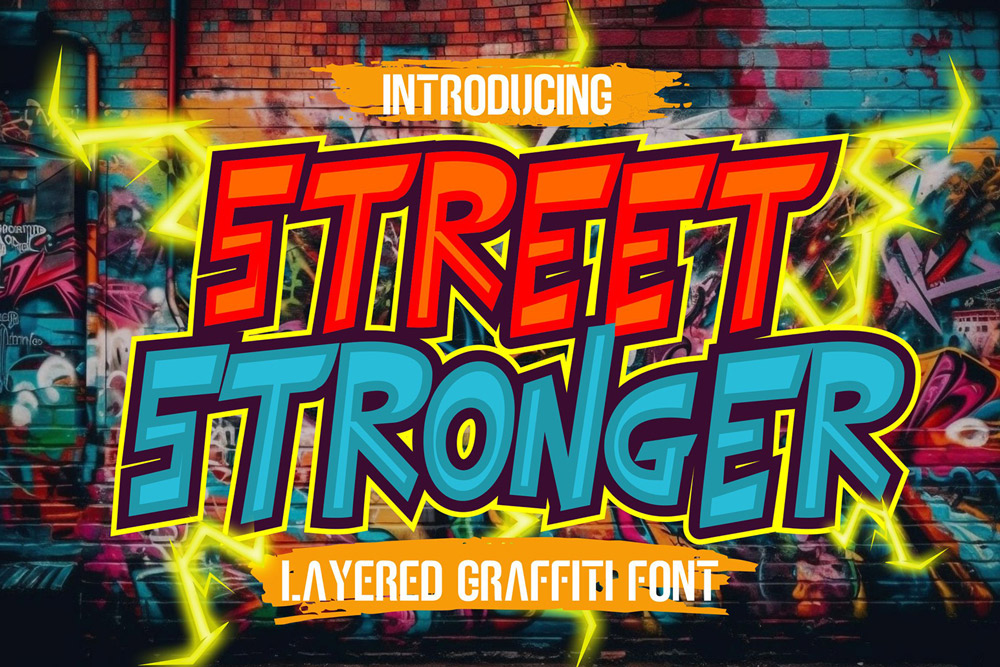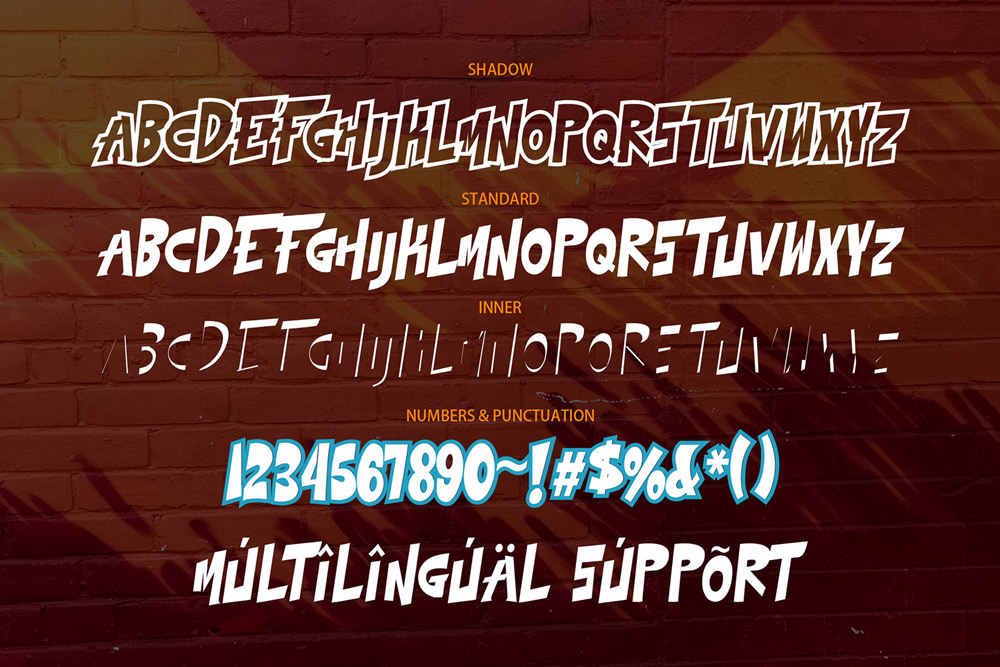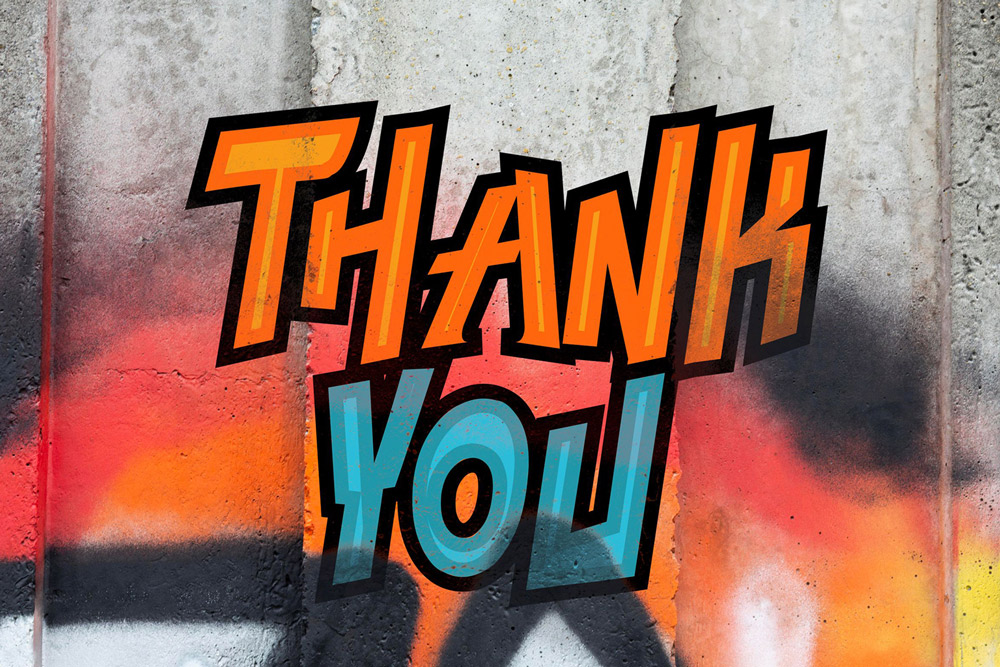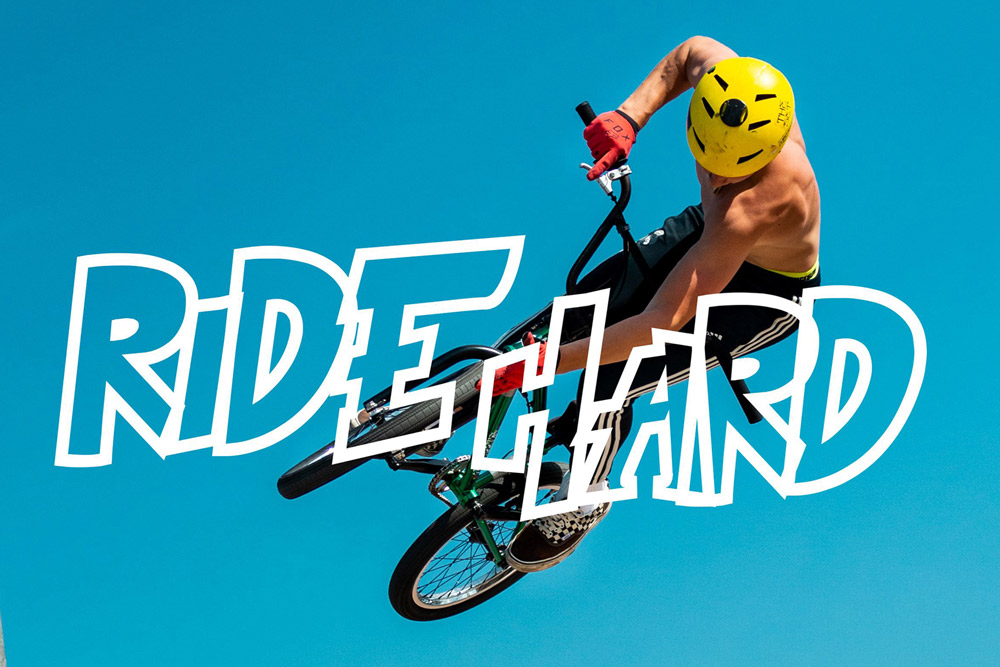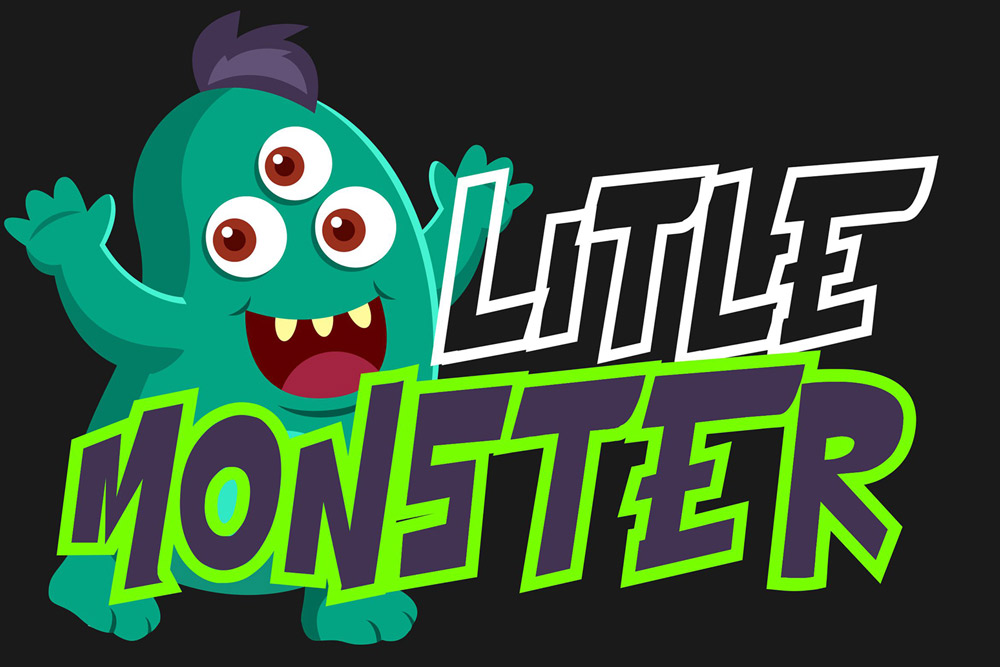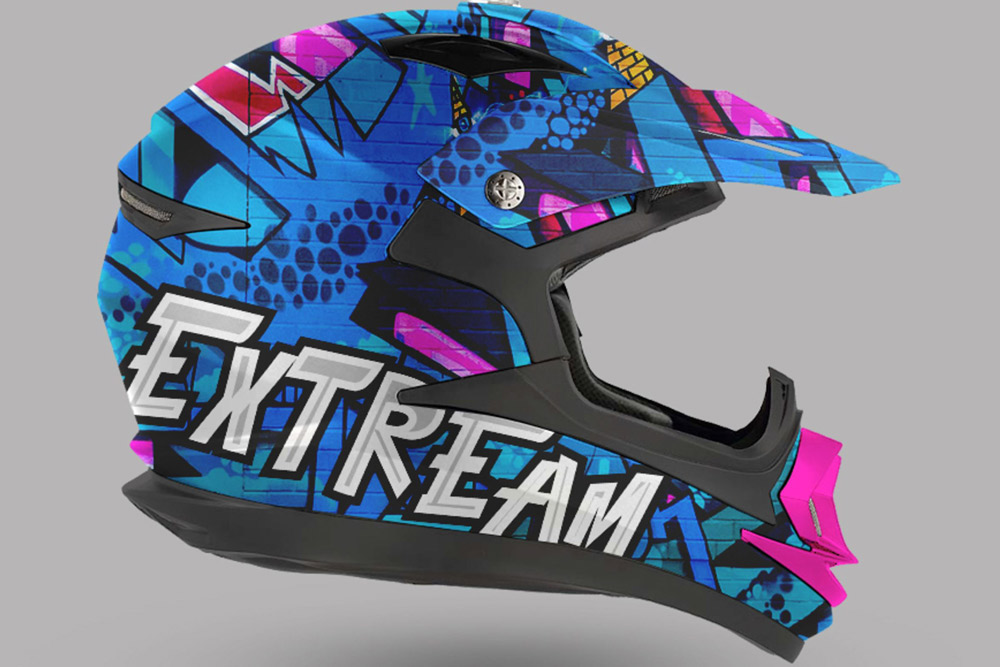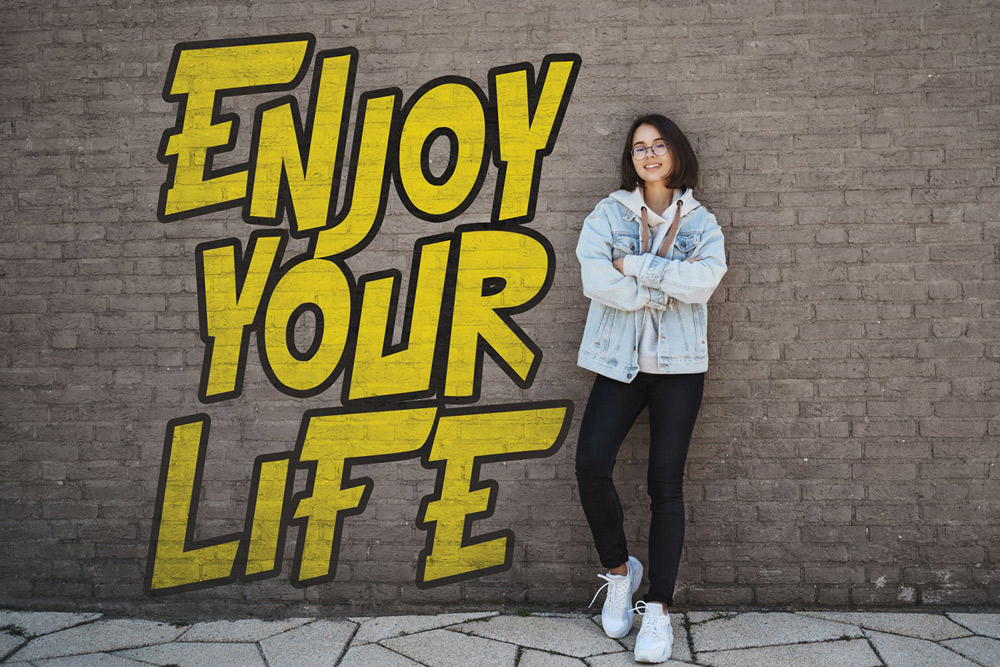
About Street Stronger Font
Street Stronger – Layered Graffiti Font
Street Stronger is a powerful and versatile graffiti font designed to bring depth, dimension, and bold urban energy into your designs. Built as a complete layered system, this layered graffiti font allows you to create striking typographic compositions with ease. Whether you’re working on streetwear branding, poster design, or music visuals, Street Stronger graffiti font delivers a strong visual presence that stands out instantly.
This urban graffiti font captures the spirit of street culture while offering a structured and professional approach to typography. With multiple layers working together, Street Stronger transforms simple text into dynamic and eye-catching visuals, making it a must-have graffiti display font for modern designers.
A Layered Graffiti Font with Depth and Impact
Street Stronger graffiti font is built with a multi-layer system that enhances your typography with depth and dimension. Unlike standard fonts, this layered graffiti font includes separate styles that can be combined to create unique effects. The result is a bold and flexible graffiti font that adapts to a wide range of creative needs.
Each layer adds a new dimension to your design. The combination of structure and layering makes this urban graffiti font ideal for designers who want to create impactful and professional-looking typography without complex editing.
Designed for Bold Urban Expression
If you want your typography to stand out, Street Stronger graffiti font is the perfect choice. This graffiti display font is designed to dominate layouts with its strong shapes and layered depth. It’s perfect for headlines, logos, and branding projects that require a powerful visual identity.
The layered system in this graffiti font allows you to experiment with colors, shadows, and inner details. This flexibility makes Street Stronger one of the most creative urban graffiti fonts available for both digital and print design.
Complete Character Set & Typography Features
Street Stronger – Layered Graffiti Font includes all essential features for professional design use.
Uppercase Characters
Bold and expressive uppercase letters designed with authentic graffiti font style for maximum visual impact.
Multilingual Support
Supports multiple languages, making this graffiti font suitable for global branding and international projects.
Numbers & Punctuation
Includes a full set of numbers and punctuation for flexible typography using this urban graffiti font.
This graffiti font package comes with a complete layered system:
- Unique layered graffiti font design
- Multiple styles for depth and dimension
- Bold and impactful urban lettering
- High readability for display typography
- Perfect for streetwear and urban branding
- Easy-to-use layering system
- Works across digital and print media
Why Designers Love Street Stronger
Designers love Street Stronger graffiti font because it offers unmatched flexibility. The layered system allows for creative experimentation, making it easy to build complex typographic designs without starting from scratch. This layered graffiti font saves time while delivering high-quality results.
Another reason designers choose this urban graffiti font is its bold visual presence. The combination of Regular, Inner, and Shadow styles creates a powerful depth that enhances any design. This makes Street Stronger a go-to graffiti display font for branding and promotional materials.
The versatility of this graffiti font also makes it suitable for a wide range of projects. Whether you’re working on streetwear, music visuals, or digital content, Street Stronger adapts effortlessly.
Perfect For Creative Projects
Street Stronger graffiti font is ideal for:
- Streetwear branding
- Graffiti posters and flyers
- Music album covers
- Social media graphics
- Logo design with urban style
- Merchandise and apparel
If you’re looking for a layered graffiti font that combines creativity and functionality, Street Stronger is the perfect solution.
Pairing Street Stronger graffiti font with a dripping style creates a powerful contrast between structured layers and raw textures, resulting in a dynamic graffiti font combination.
Street Stronger – Layered Graffiti Font is more than just a typeface—it’s a creative system designed to elevate your typography. With its layered structure and bold urban style, this graffiti font allows you to create powerful, dynamic visuals with ease.
If you want a graffiti font that offers depth, flexibility, and strong visual impact, Street Stronger is your ultimate choice. Take your designs to the next level and make every project stronger, louder, and more expressive.